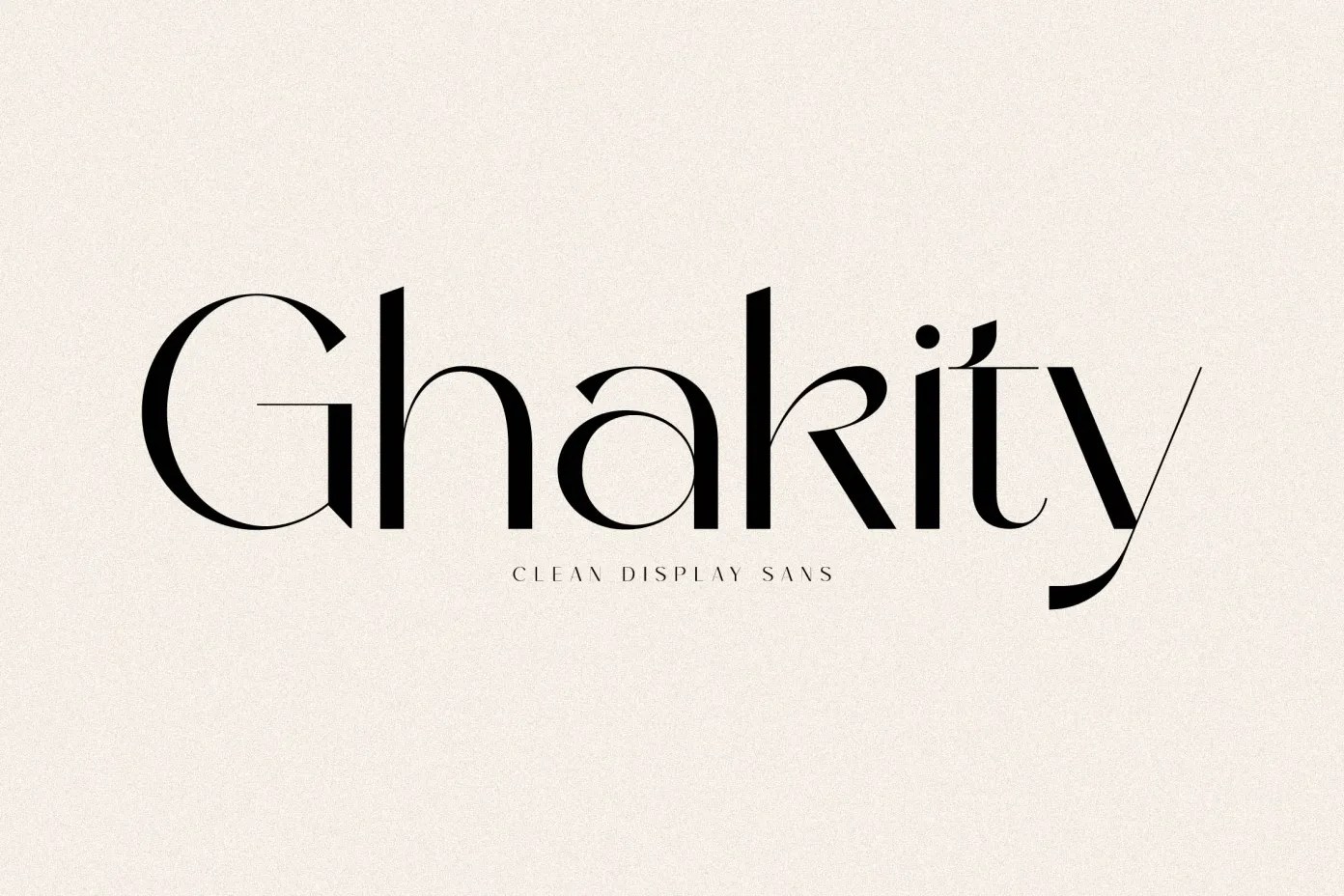
The Ghakity font is the apple of any designer’s eye because of its luxurious appearance with a modern touch. But its popularity can make your design lose its individuality. With our Ghakity font alternatives, you can not only create a contemporary and elegant design but also a unique personality.
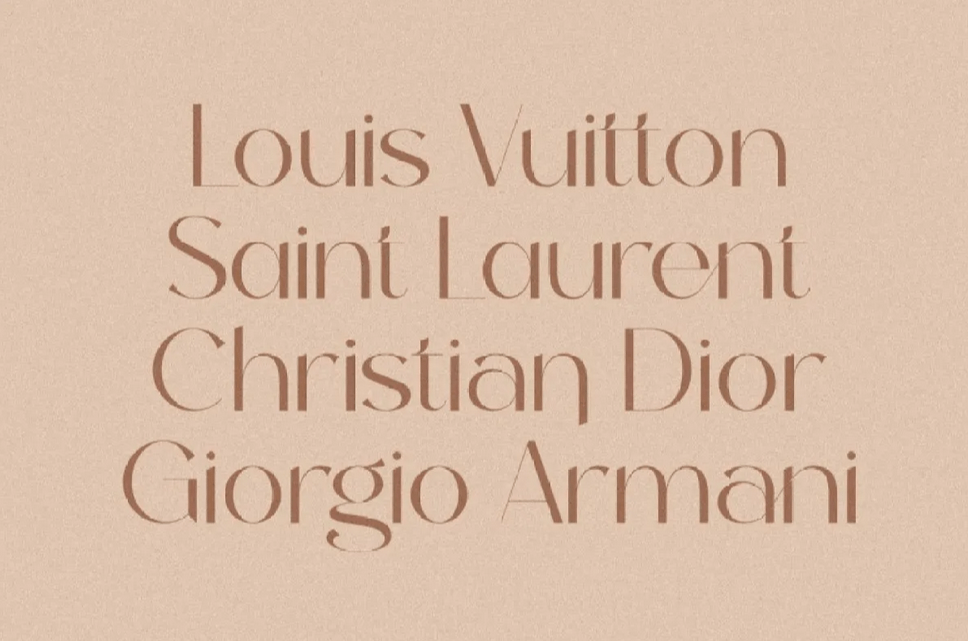
Ghakity font is known for its delicate contrast and refined elegance, making it a popular choice for sophisticated branding and design projects. Its graceful strokes and well-balanced proportions make it ideal for elegant logos, book or movie title designs, fashion branding, magazines, lettering, and more.
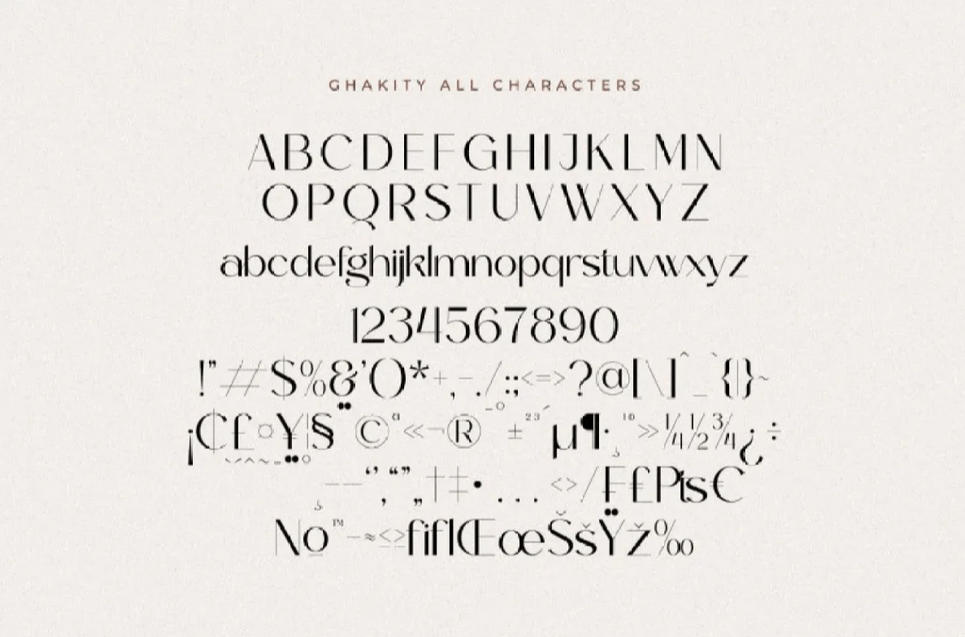
With shorter ligatures and versatile serifs, Ghakity achieves a modern yet classic aesthetic, blending tradition with contemporary style.
As stated by Dordevic, a chosen typeface must not only expose distinctive designs but also define your brand personality. Below is the list of alternatives that can replace the Ghakity font that offer both clarity and uniqueness to elevate your designs.
Grailga mimics the versatile contrast of the Ghakity font, but the swirly strokes and anther-like ligatures emphasize its modern and graceful vibes.
Qalina greets you with its dramatic swashes and straight serifs. The font’s decorative alternates will be spectacular in branding projects and magazines.
Ergisa’s oblique serifs and subtle curves are good-looking. Use the font’s sparkling accents on displays and corporate brands for a luxurious look.
Ranoya’s readability is seen at first glance through its minimalistic lines. Combine the font’s simplicity with the italic version for a more fashionable appearance.
August Bright’s drape-like swashes are the main attention. Its delicate, thin strokes also complement the exaggerated, thick strokes.
Branela is one of the most special Ghakity font alternatives that introduces the combination of calligraphic alternates and classic serif-style letterforms.
George Coast is an ’80s-inspired font with a condensed rhythm. This straight-baseline typeface also comes in an italic version, adding versatility to your typography.
Dream Cottage’s ligatures and stroke contrast evoke a dreamy, euphoric feel, just like the joy of finally owning your dream home.
With more than 50 styles of ligature, Fergina will make your headlines and advertisements more contemporary yet elegant.
Bellafaith’s ligature and serif shapes are varied. The font’s thin and thick strokes are balanced to show high readability.
Laurasia’s dramatic and curvy strokes are so 70s-groovy style. Yet, the serifs balance the modern vibe with the traditional one.
Hiyori exudes a Japanese vibe of femininity through the font’s heavyweight, tasteful ligatures, and gorgeous swashes. Use them for princess-like wedding designs.
Rosther’s clean lines prove the font’s legibility. Showcase its sporty alternates on your merchandise and any product packaging for a dynamic look.
Vestha is one of the fantastic Ghakity font alternatives that exhibit sizable swashes and ligatures with phenomenal alternates.
Briangel’s astounding letter shapes are complementary to the traditional baseline and serifs. Apply the font on your watermarks and product designs for a captivating touch.
Bosegia’s letterforms are painted oblique. Their ovals are also passionately drawn narrow, resembling the various shapes of flower petals.
Regasti is one of the Ghakity font alternatives that present bold letter shapes with rounded ovals and exaggerated terminals.
Adelga spreads the refreshing yet calming scent of flowers through its calyx-shaped terminals and flower-bud-like ovals.
Gafiya’s alternates are fashionable with unique descenders and hair-strand-like shapes. Take advantage of the clean lines for readability on your logos, too.
Rochega’s legibility is evident through its boldness. The chic letter shapes add up to the font’s trendy appearance.
Reniega’s horizontal baseline harmonizes with the water-droplet-shaped letterforms. Showcase this font’s readability and elegance on your social media posts.
The numerical shapes and comma-like ears are the charms of Ronagia. Use the numerical alternates on your printed quotes for an elegant touch.
Gastey gives the impression of a 90s-vintage vibe through the font’s daring boldness and decorative details.
Magiela’s heart-like letter shapes are carved with a slanted axis. Arrange your website’s typography with the font’s clean lines.
Elegance Pearl’s elegant contrast and extraordinary alternates are as exquisite as wearing a pearl necklace.
The Glorious’s luxurious appearance and refined contrast adopt the good qualities of the Ghakity font perfectly.
Ghakity font alternatives should possess subtle contrast to present elegance. However, they should represent your personality with their uniqueness, such as stylish alternates, fashionable strokes, and clean lines.